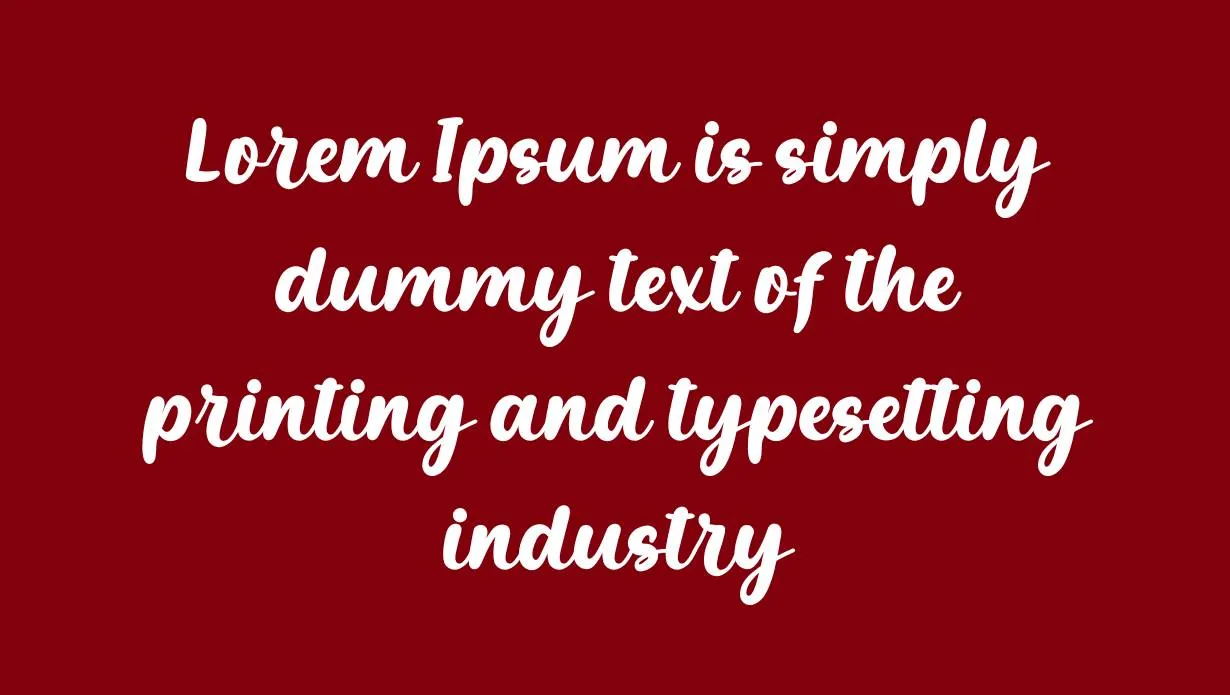
Here we will present a stylish, bold, and creative typeface that will undoubtedly elevate the quality of your design and make it distinctive and innovative for viewers. Resty Font falls under the category of bold script fonts. It was created by Rozikan and shared by Twin Letter.
| Name | Resty Font |
| Designer | Rozikan |